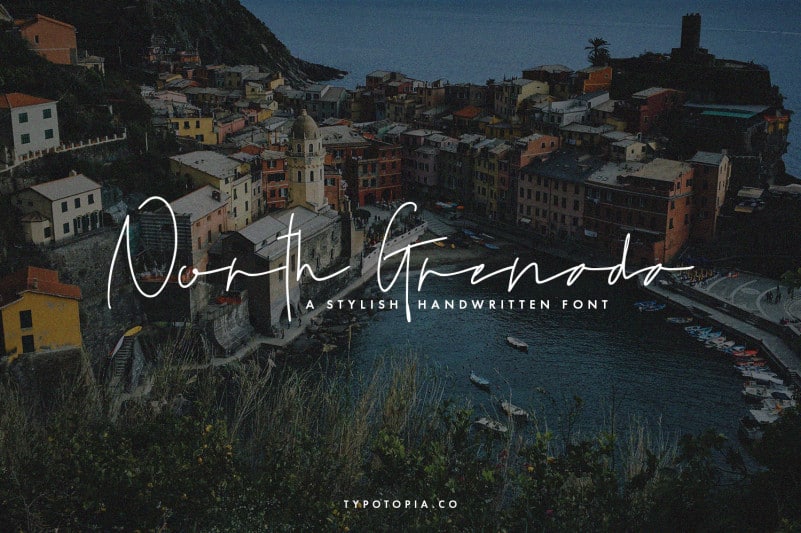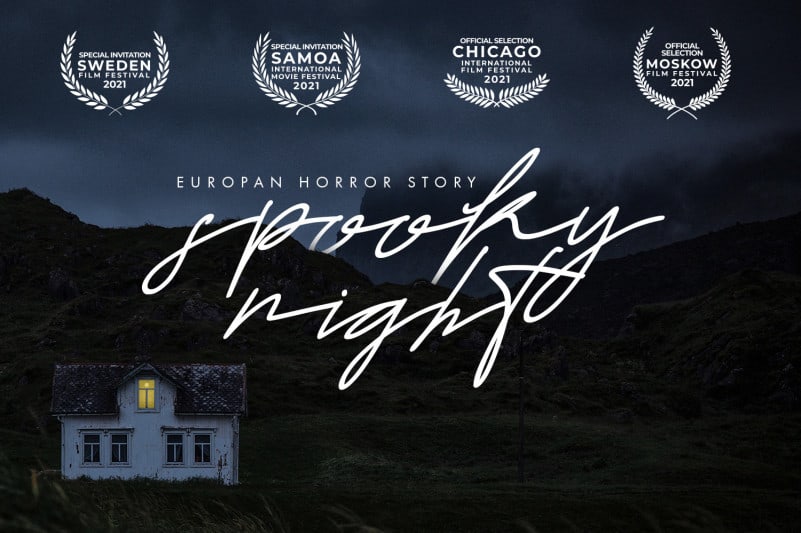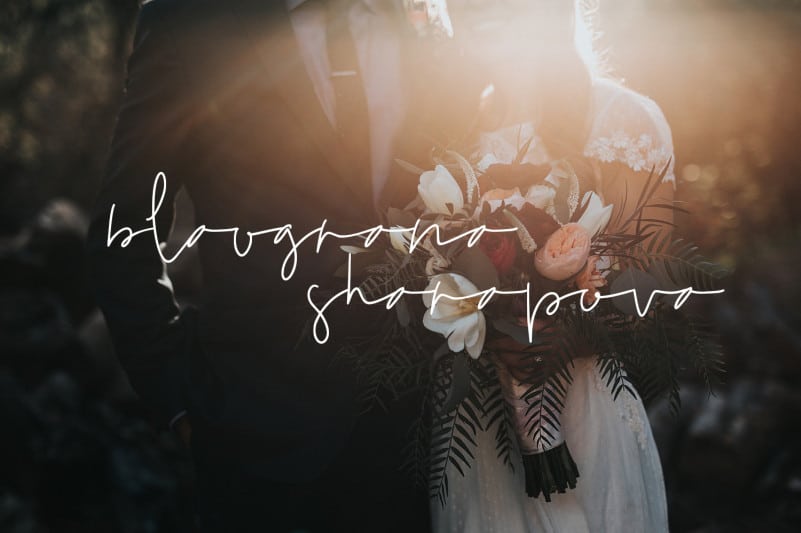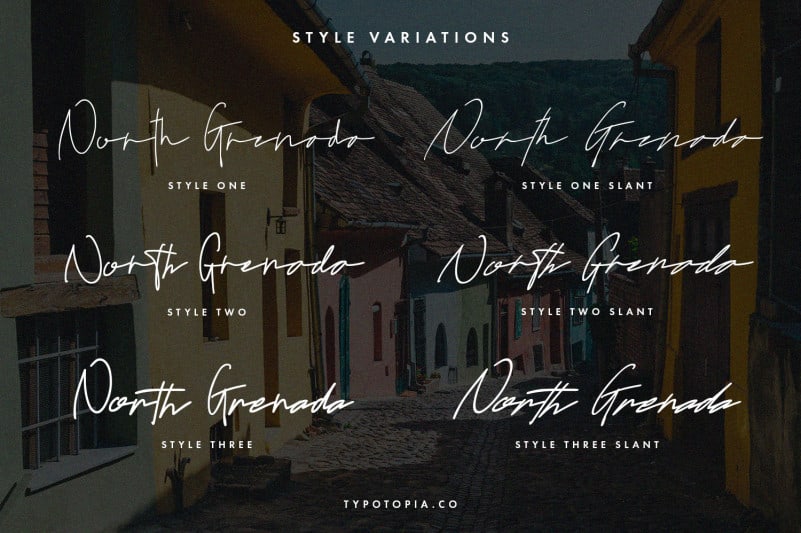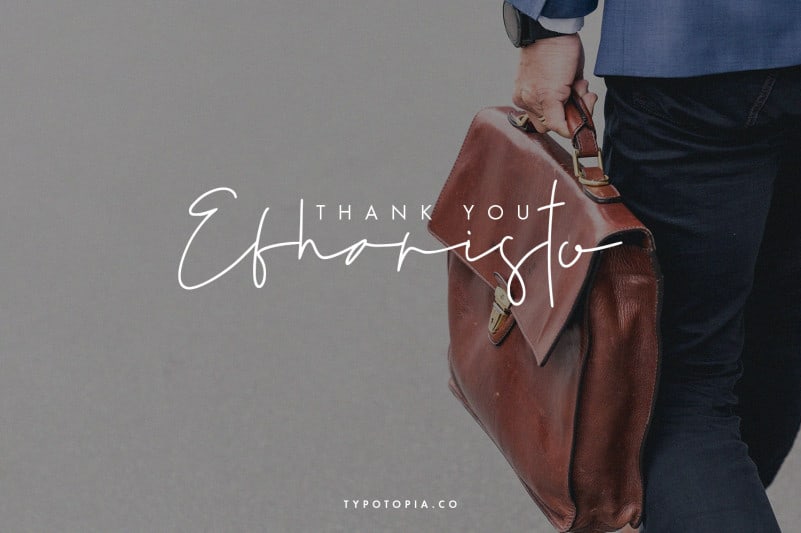
North Grenada Handwritten Font
North Grenada Handwritten Font The Stylish Handwritten Fonts. This Fonts Comes with 6 Elegant Variations. Every single letters have been carefully crafted to make your designs looks better.
North Grenada Handwritten Font is the great choice for several purpose, such as watermark, signature, signature-styled logo, business card design, quotes, album cover, invitation letter, stationery, and many other design project that need handwriting taste.